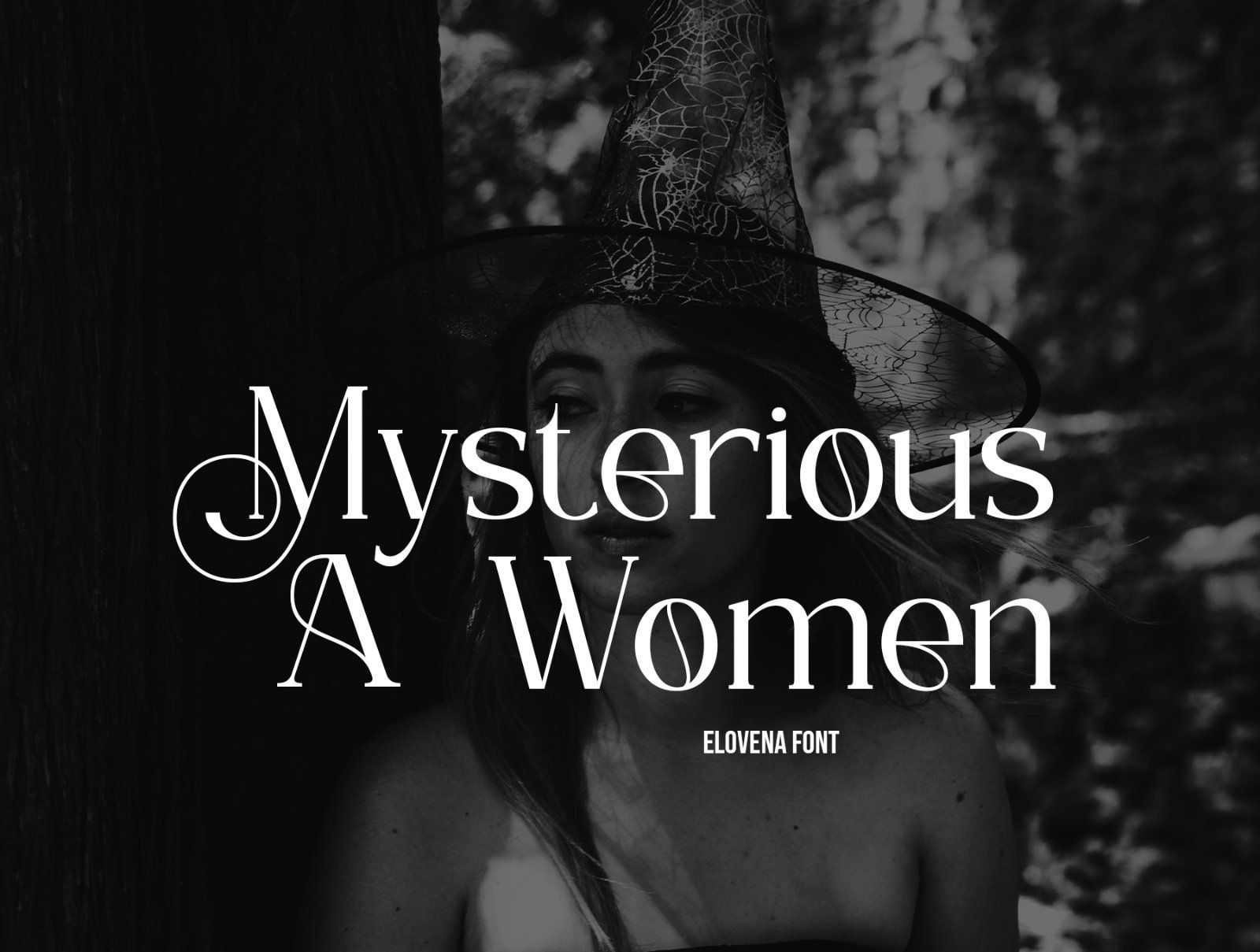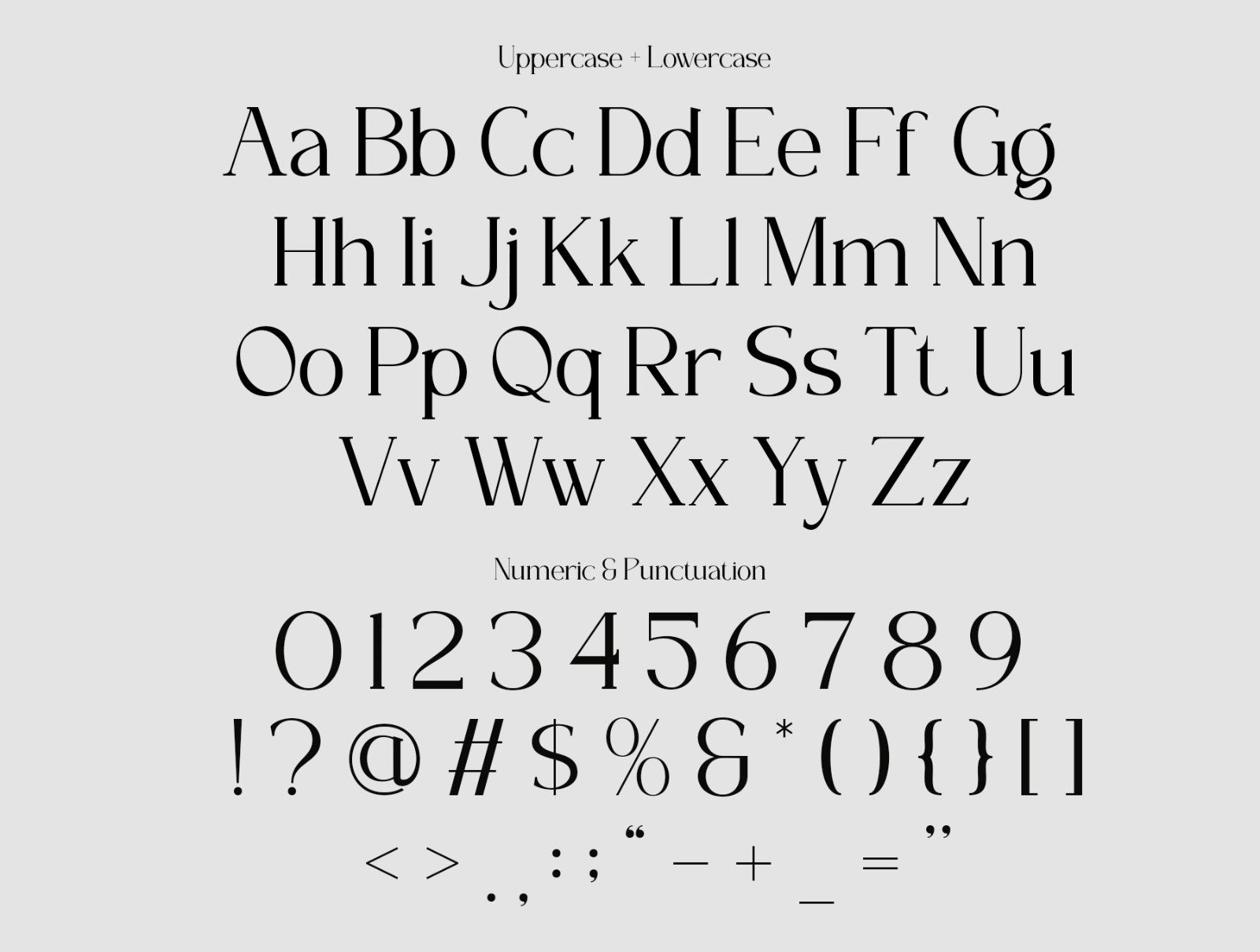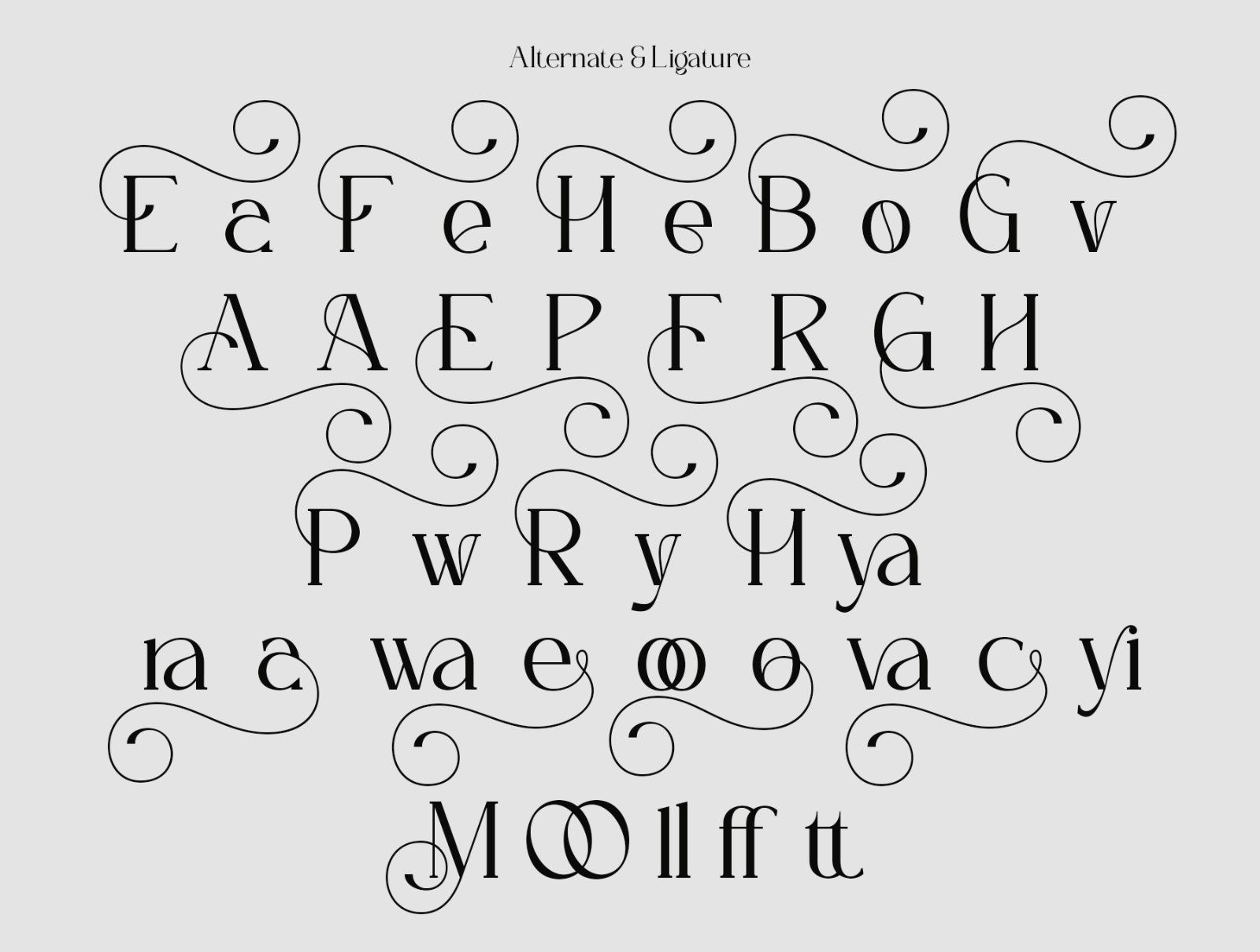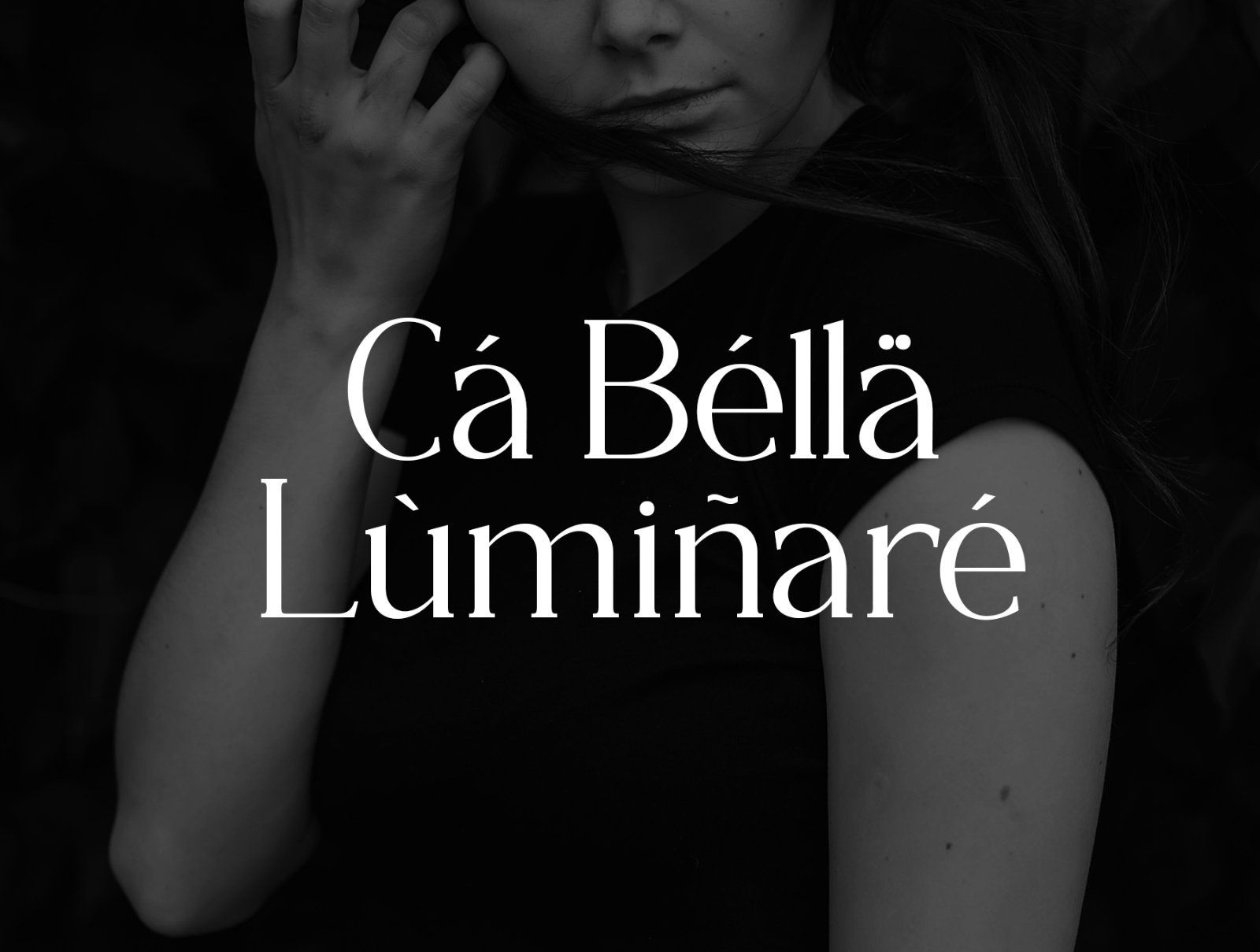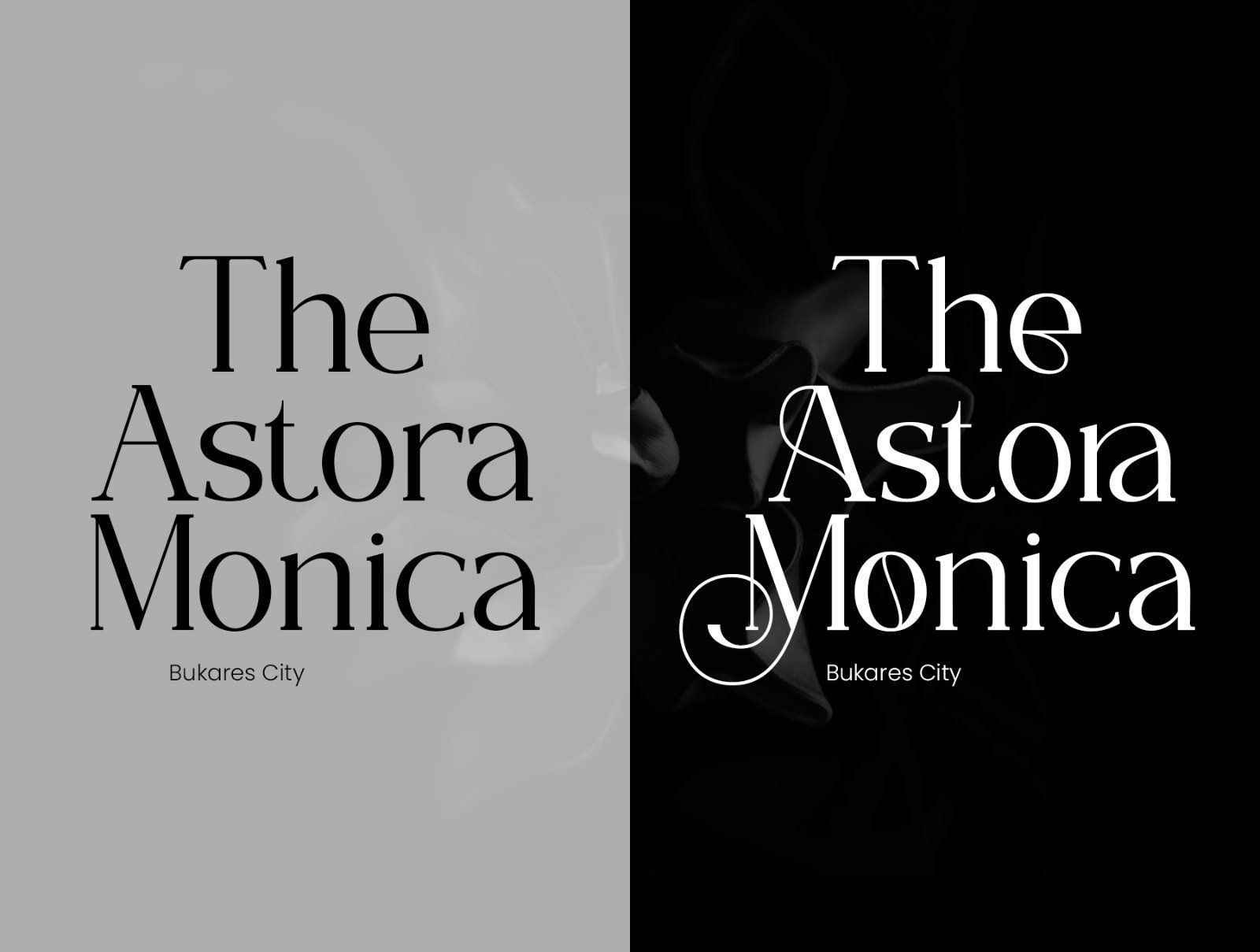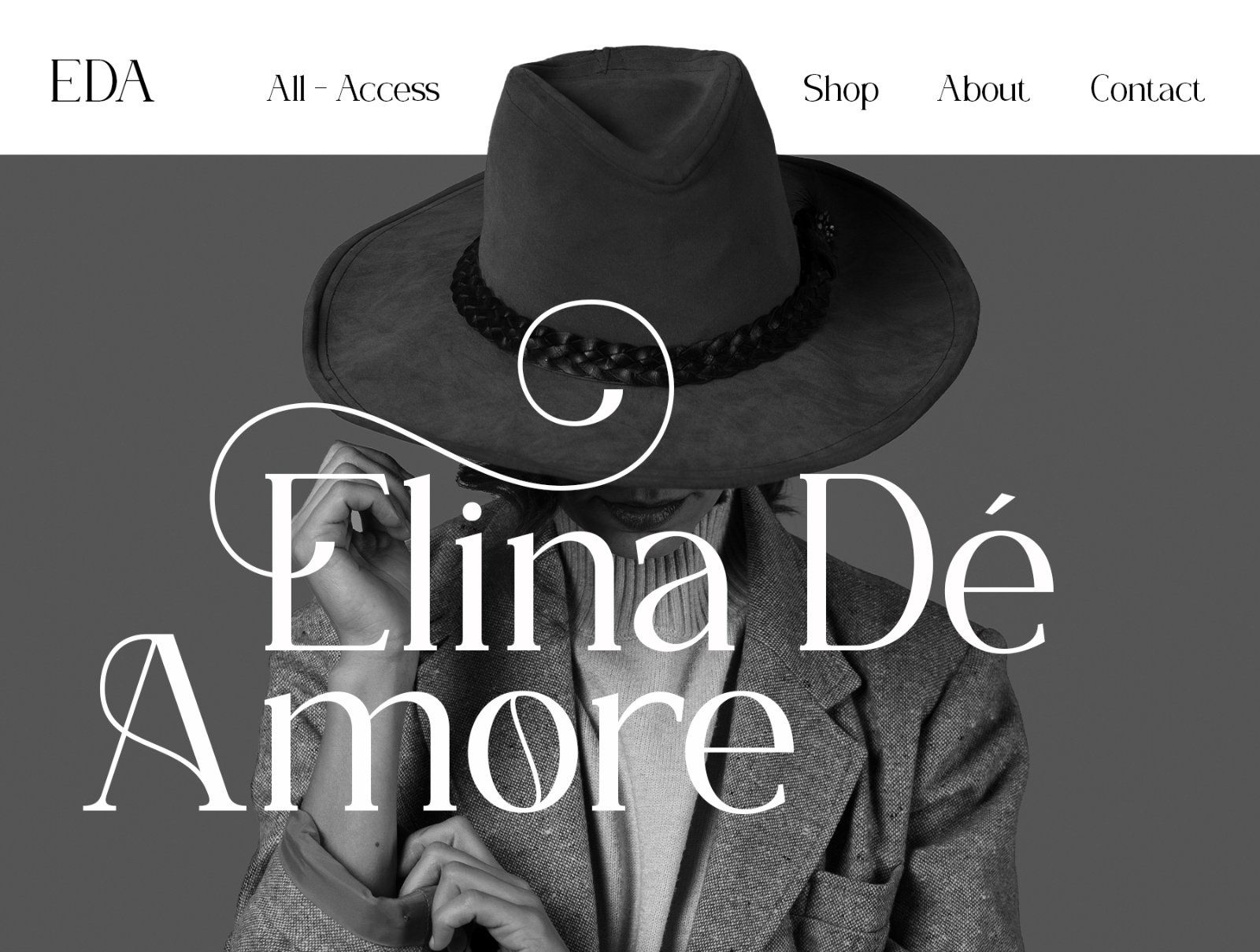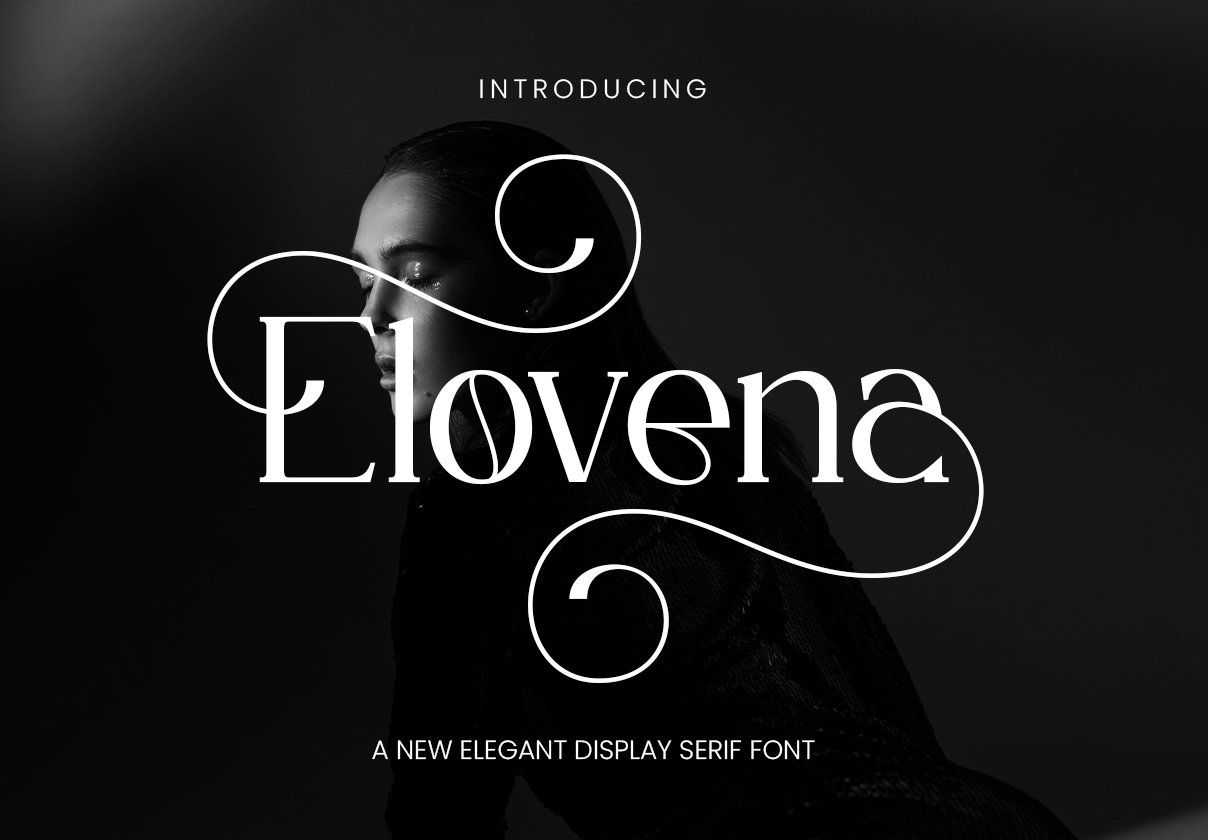
ELOVENA is a sophisticated display serif font that blends timeless elegance with modern luxury. Designed with graceful curves and refined details, Elovena is perfect for creating striking headlines, stylish branding, and high-end editorial layouts.
Its ornamental strokes and unique letterforms make it an ideal choice for fashion, lifestyle, and creative projects that demand a touch of class.
Elovena available with:
• Uppercase
• Lowercase
• Number & Punctuation
• Stylistic Alternate & Ligature